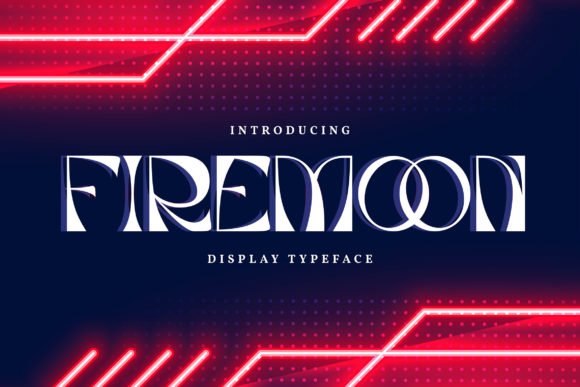
Introduction to Firemoon Font
Firemoon is a cool, chic and modern looking display font.
It is PUA encoded which means you can access all glyphs and swashes with ease Add this whimsical font confidently to your favorite creations and let yourself be amazed by the outcome generated.
Key Features of Firemoon Font
Why Choose Firemoon Font?
Firemoon Font offers exceptional quality and versatility, making it a valuable addition to your design toolkit. Whether you’re creating for personal projects or commercial use, Firemoon Font delivers professional results.